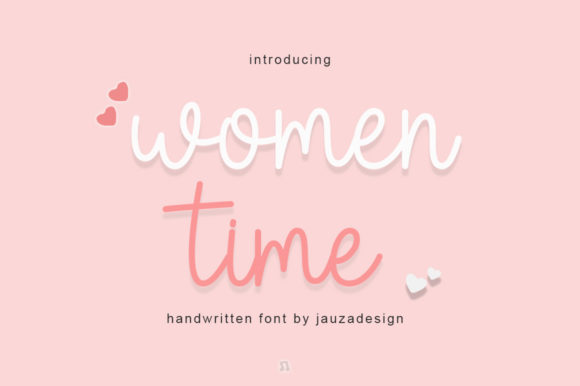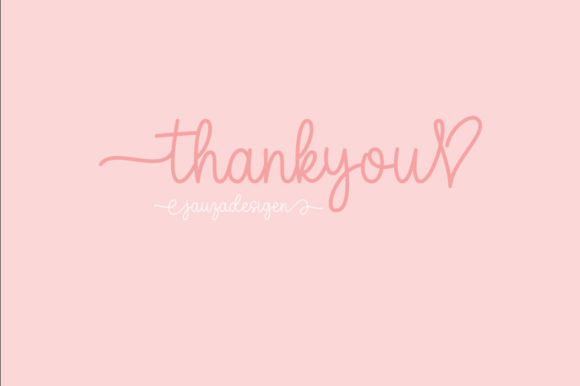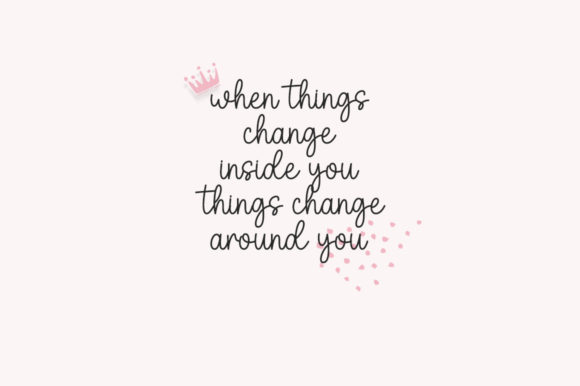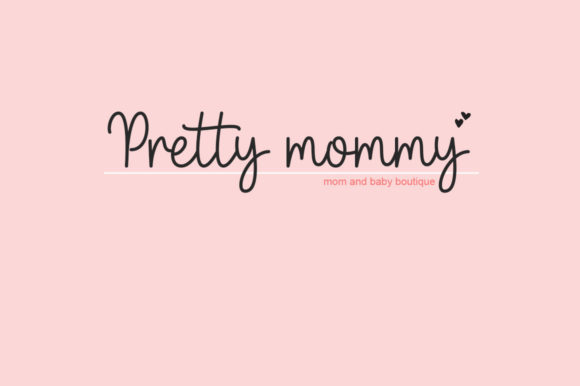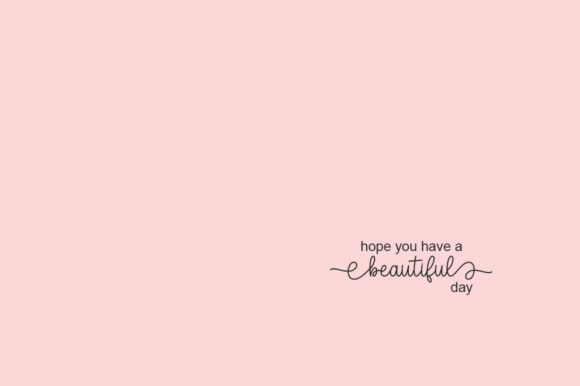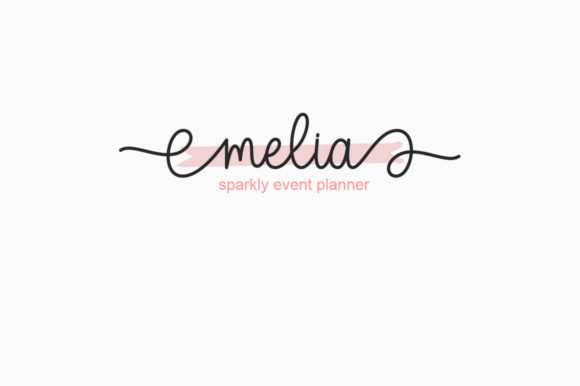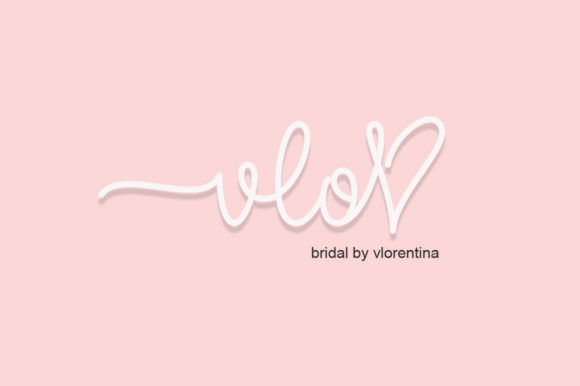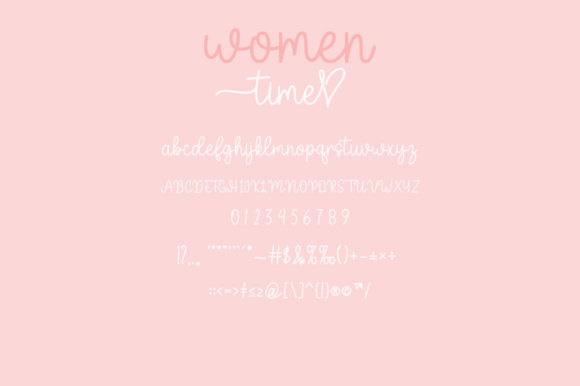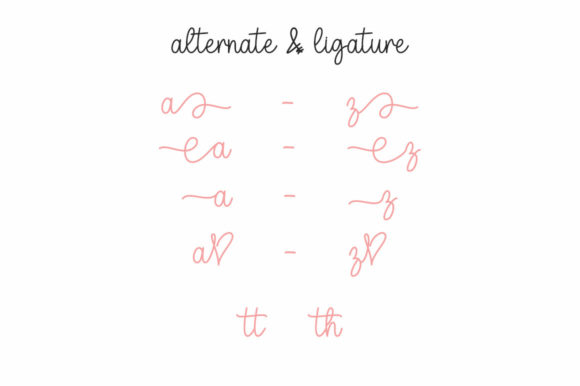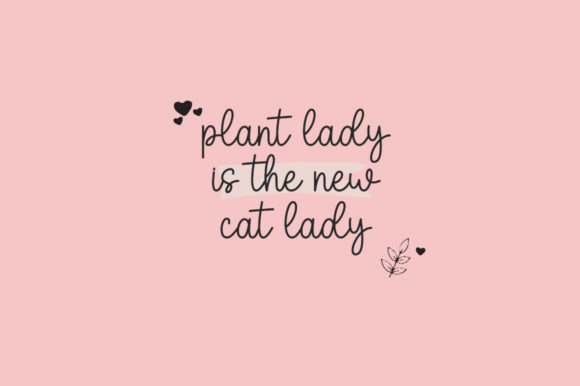
Women Time Font
About Women Time Font
Women Time font is a graceful and refined script typeface that effortlessly captures the essence of elegance and sophistication. Its thin, delicate letterforms are beautifully crafted to bring a sense of timeless charm to any design it graces.
The slender strokes and intricate details of Women Time font create an air of delicacy and finesse, making it an ideal choice for projects that seek to convey a sense of femininity and grace. Imagine using it for wedding invitations, where its ethereal beauty sets the perfect tone for a romantic celebration.
But Women Time font isn’t limited to just weddings. Its versatile nature allows it to seamlessly fit into a variety of design contexts. From fashion branding that wants to exude a sense of refinement, to editorial layouts that demand an extra touch of elegance, this font adds a touch of sophistication to every project.
The PUA encoding of Women Time font is a valuable feature that grants you access to a treasure trove of glyphs and ligatures. This means you have the freedom to experiment and create unique combinations that truly reflect your design vision. The ligatures and alternate characters allow you to add subtle variations to your text, enhancing its visual appeal and creating a custom look.
The delicate curves and graceful flourishes of Women Time font make it a perfect fit for projects that require a touch of subtlety and sophistication. Consider using it for inspirational quotes, where its refined appearance complements the profound words and creates a harmonious balance between form and content.
In branding, Women Time font can become the cornerstone of a brand’s identity, symbolizing elegance, luxury, and a commitment to quality. Its thin letterforms radiate confidence and assurance, making it a suitable choice for high-end products and services that aim to leave a lasting impression.
As you add Women Time font to your favorite creations, you’ll witness the transformation of your designs into works of art. The delicate script carries with it an air of exclusivity and refinement, elevating every project and leaving a mark of sophistication that’s sure to captivate your audience.
So, embrace the beauty and grace of Women Time font as you embark on your creative journey. Whether it’s crafting invitations, designing logos, or enhancing social media graphics, this font will add a touch of elegance and allure that resonates with every viewer. Let yourself be inspired by the outcome generated and watch your designs shine with the brilliance of timeless sophistication.